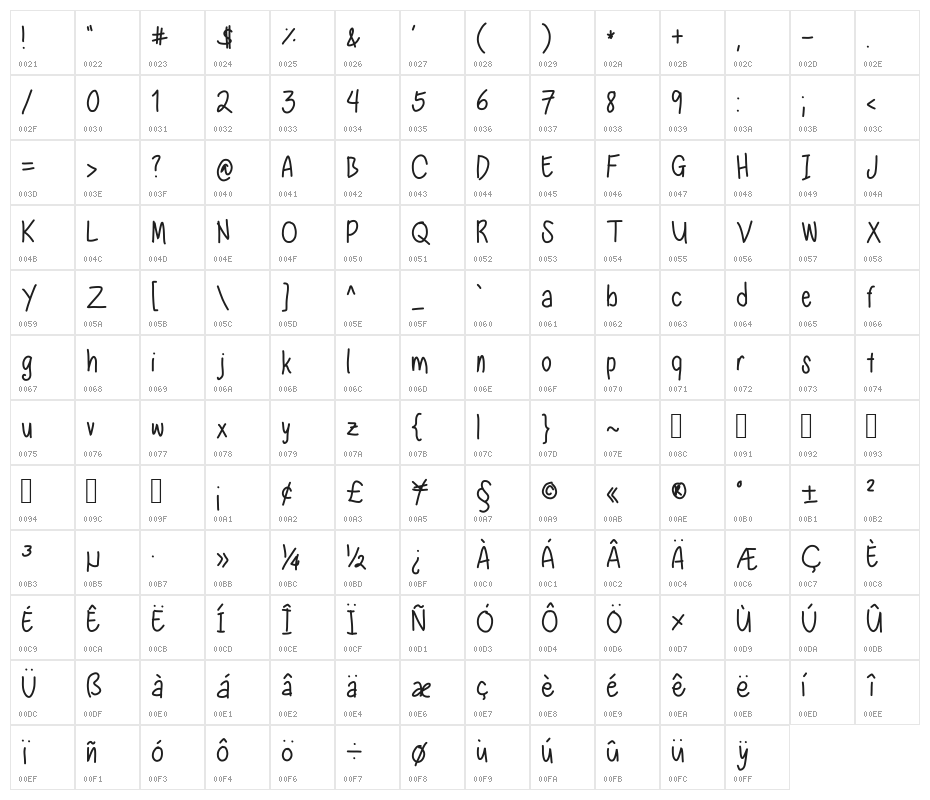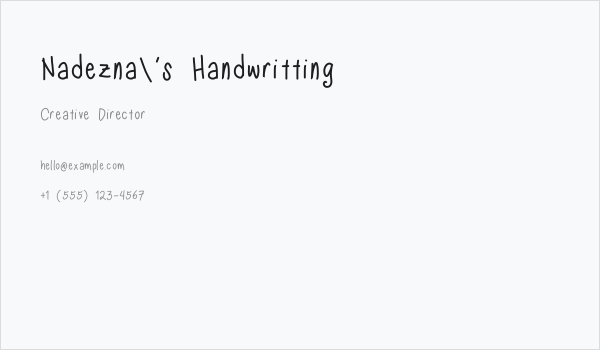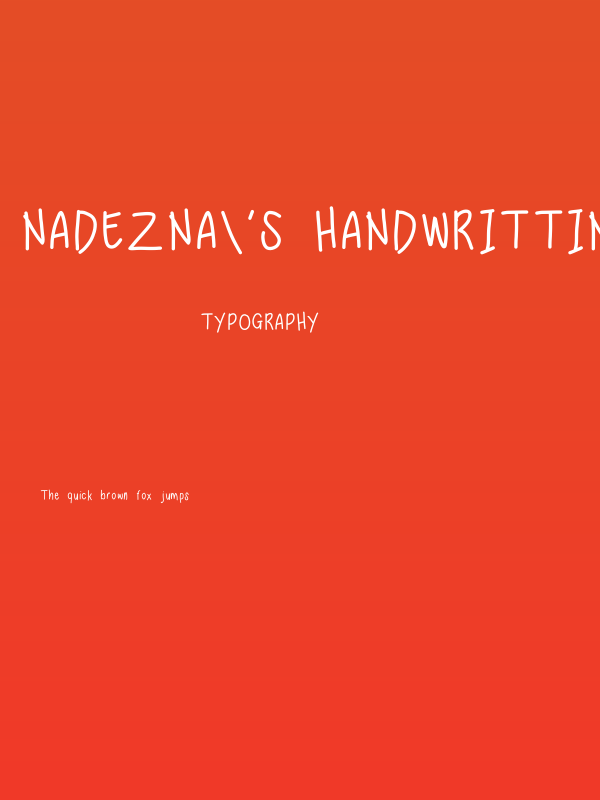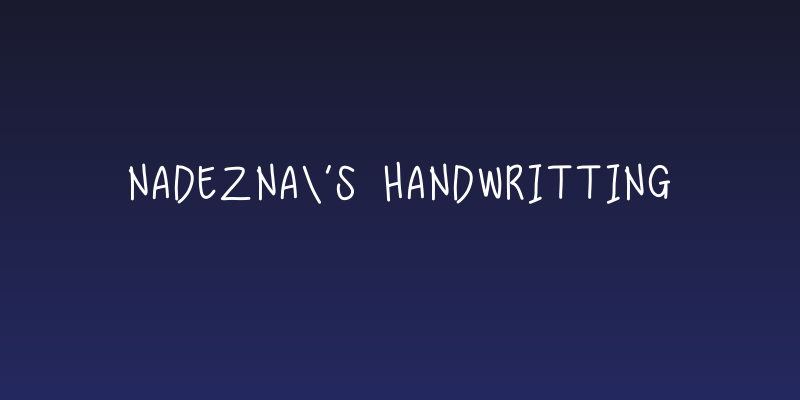
Nadezna's Handwritting Font
Nadezna's Handwritting Description
This font exudes a casual and personal touch, reminiscent of authentic handwriting. The letters are slightly irregular, adding to the charm and authenticity of the handwritten style. The strokes are smooth and consistent, with a playful and approachable feel. The uppercase and lowercase letters maintain a coherent style, while the numerals and special characters blend seamlessly with the overall design. This font is perfect for projects that require a personal, informal, and friendly appearance, making it ideal for invitations, greeting cards, and personal branding.
| Use Case | Invitations, Greeting cards, Personal branding |
| Proposed Projects | Ideal for invitations, greeting cards, personal branding, and informal communications. |